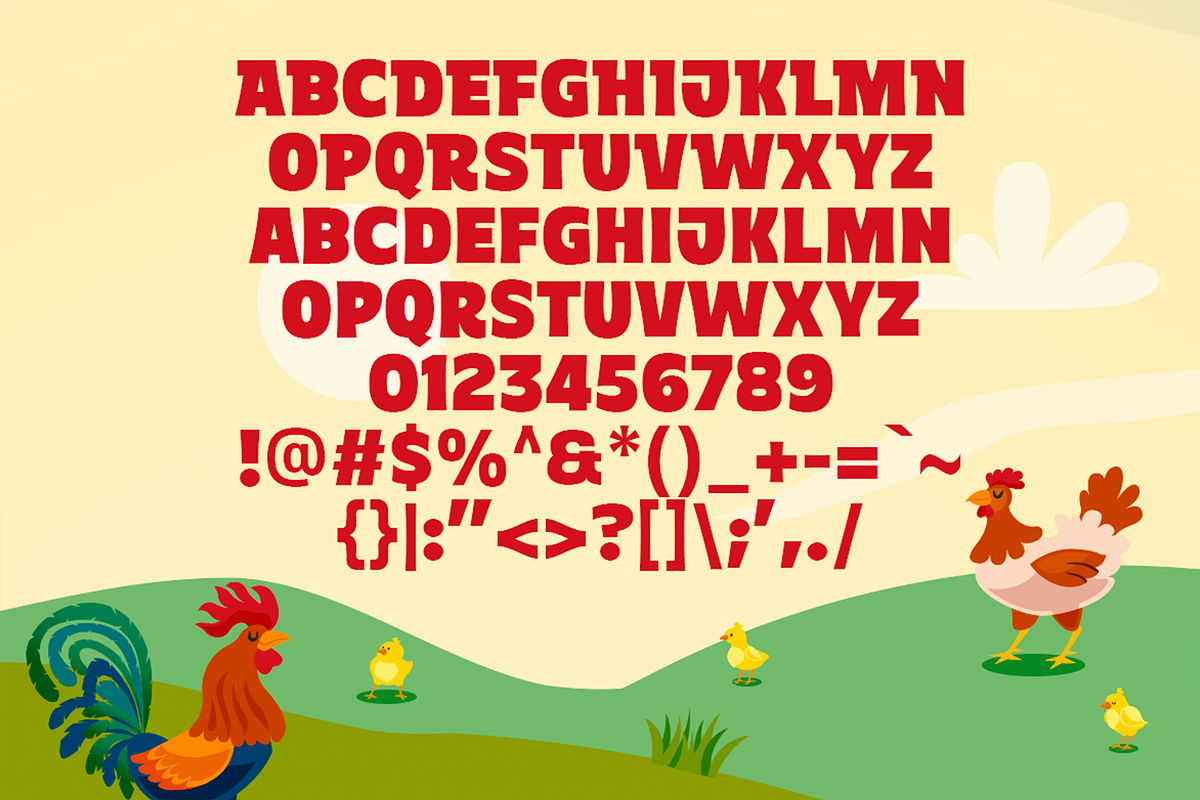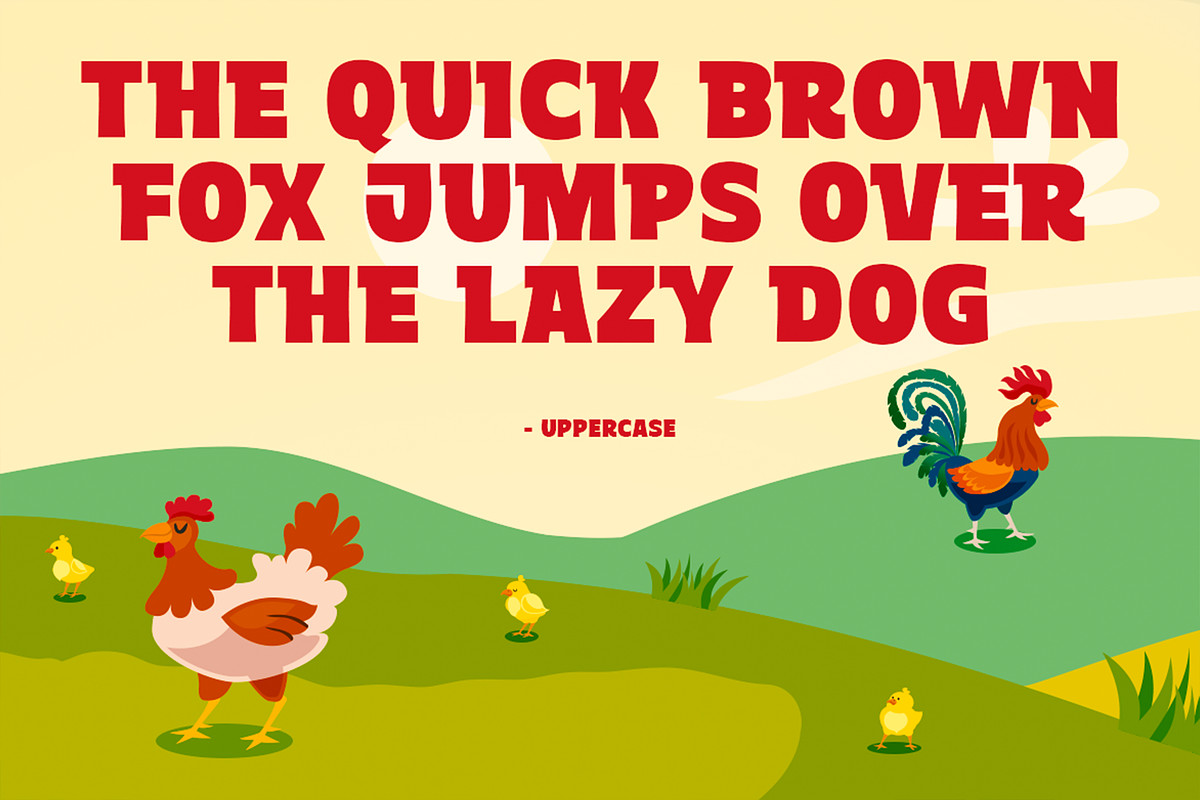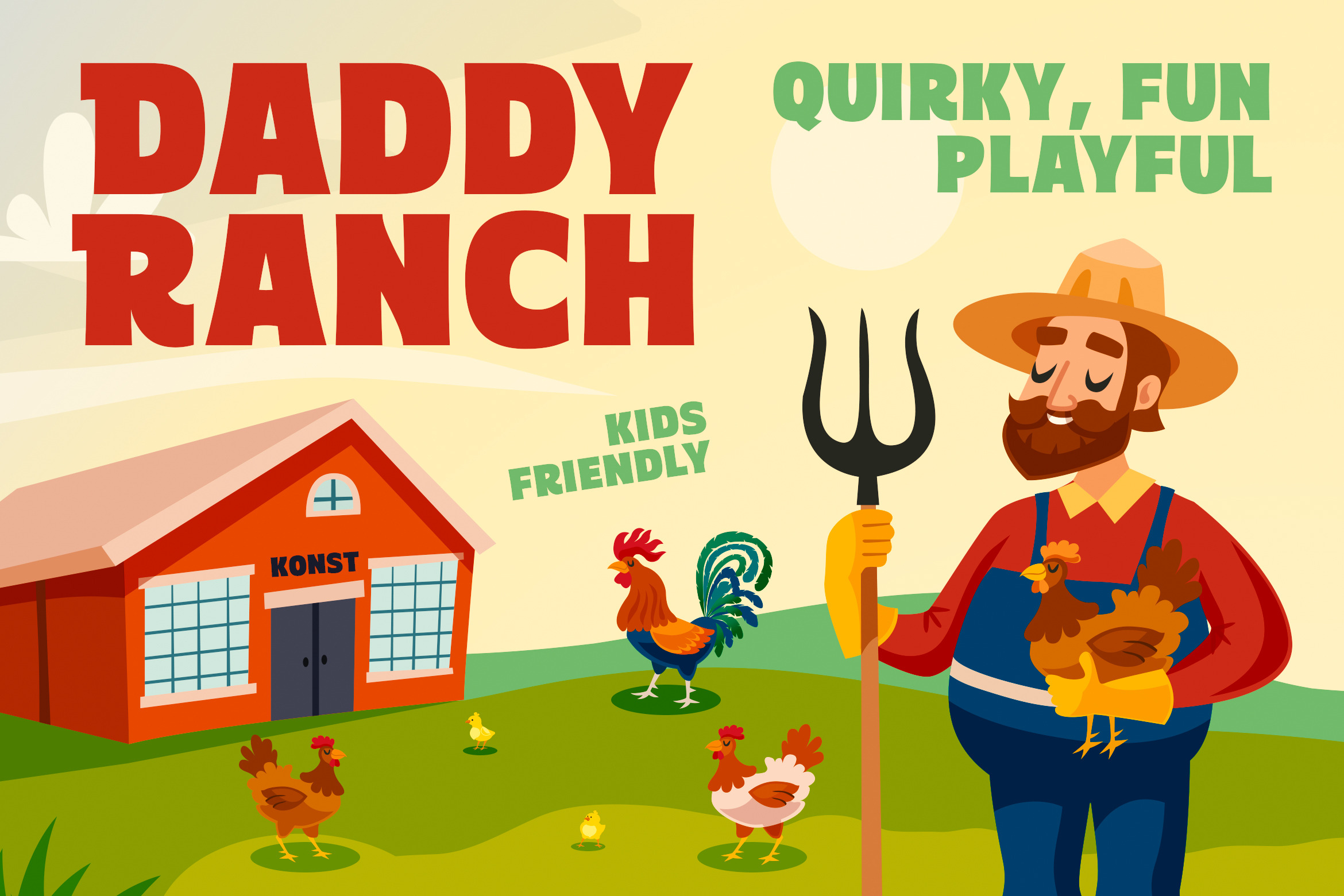
Daddy Ranch – Kids Fun Fonts
Immerse yourself in the whimsical world of Grandpa's Ranch with Daddy Ranch fonts, where playful moments come to life. Our quirky, kid-friendly fonts are the perfect choice for enhancing your child's themed visuals, storybooks, children's apparel, games, and toys.
Instantly infuse fun and creativity into any project with our vibrant and engaging typography. Ideal for designers seeking to captivate young audiences, these fonts bring a touch of joy and imagination to every creation. Discover the perfect blend of style and playfulness that makes your designs stand out.